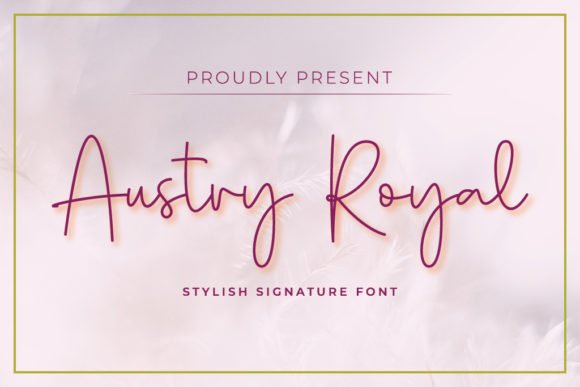
The Perfect Script for Your Masterpiece: Austy Royal Font
As a designer, have you ever been on a creative high, pouring over sketches and color palettes, searching for that one perfect element to tie your entire project together? It’s that moment when the words flow effortlessly, and your vision starts to take shape. For many of us, this is the moment when the right font can make all the difference.
Enter the Austry Royal Font, a beautiful and refined script font that exudes elegance, sophistication, and modernity. Whether you’re crafting a logo, designing wedding stationery, or creating a social media post, this font is the perfect companion to elevate your work. With its classy and refined look, the Austry Royal Font is a valuable addition to any designer’s toolkit.
Austry Royal Font Key Features
- Unique Characteristics: Austry Royal Font features a unique blend of modern and classic design elements, with intricate details and subtle flair, making it perfect for formal and luxury branding.
- Font Style: The font is available in two styles: Regular and Bold, allowing for versatility in typography and emphasis.
Austry Royal Font Review
Overall, I found the Austry Royal font to be quite impressive, with several features that make it stand out. ✨ One of the things I like about this font is its unique and elegant design, making it perfect for use in high-end branding, luxury products, or fine art projects. ✨ The font’s clean lines and subtle nuances give it a sophisticated feel that’s hard to resist.
- Unique and elegant design
- Perfect for luxury branding, fine art projects, or high-end products
- Wide range of languages supported
- Great for use in headings, titles, and short paragraphs
However, there are a few limitations to consider. ⚠️ The font may not be the best choice for body text, as it can be difficult to read in larger quantities. ⚠️ Additionally, the font’s unique design may not be suitable for all audiences, and it may not be the best choice for projects that require a more conservative or traditional look.
Overall, I would give the Austry Royal font a solid 4 out of 5 stars. While it’s not perfect, its unique design and elegant feel make it a great choice for the right projects. Just be sure to use it thoughtfully and in moderation to get the most out of its strengths.
Tips for Getting the Most Out of Austry Royal Font
Austry Royal Font is ideal for creating luxurious and elegant designs. To get the most out of it, use it for headings and titles, and pair it with a clean and simple font for body text.
Austry Royal Font is commonly used for:
- Luxury branding and packaging
- High-end marketing materials
Alternatives to Austry Royal Font
The Great Vibes Font is a beautiful, elegant script font that is perfect for adding a touch of sophistication to your designs. It is ideal for use in headings, titles, and other areas where you want to make a statement. Great Vibes Font is more ornate than Austry Royal Font and has a more flowing, handwritten feel.
The Carolyna Pro Font is a modern, luxurious script font that is perfect for high-end designs. It is ideal for use in headings, titles, and other areas where you want to convey elegance and sophistication. Carolyna Pro Font is more refined and polished than Austry Royal Font, making it perfect for corporate and luxury brands.